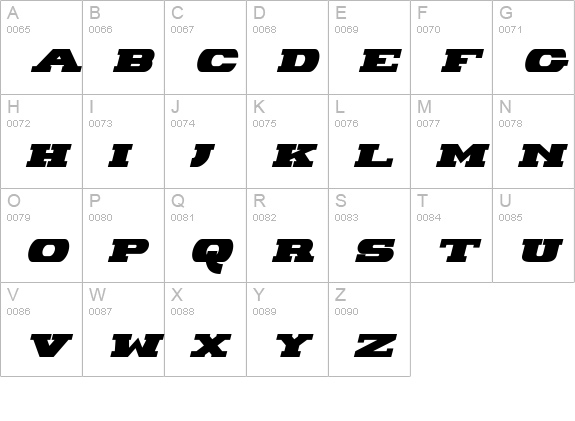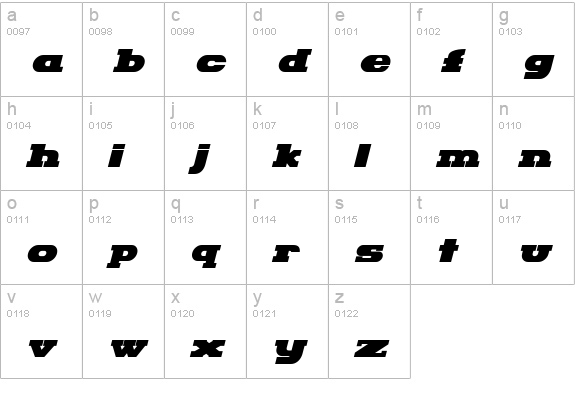
Hackney Block Italic Font Details
Hackney Block Italic is a distinctive, italic variant in the Hackney typeface family \xE2\x80\x94 well suited to design and typography projects.
Hackney Block Italic is a striking and dynamic font that exudes a sense of boldness and urban energy. Its unique design features sharp edges and strong lines, creating a visually captivating typeface that demands attention. This font is perfect for projects that require a modern and edgy look, such as logo designs, branding materials, and advertising campaigns. Its italic style adds a touch of sophistication and adds a sense of movement to any text. The versatility of Hackney Block Italic is unmatched, allowing it to be used in a wide range of contexts. Whether you are designing a poster for a music festival, creating a website for a fashion brand, or producing eye-catching social media graphics, this font will make your message stand out. One of the best things about Hackney Block Italic is that it is free. That's right, this incredible font is freely available to download at FontsMarket.com. You can access it easily and start using it in your projects right away, without any cost or restrictions. Don't miss out on this opportunity to elevate your designs with Hackney Block Italic. Download it today from FontsMarket.com and discover the endless creative possibilities that this font has to offer.